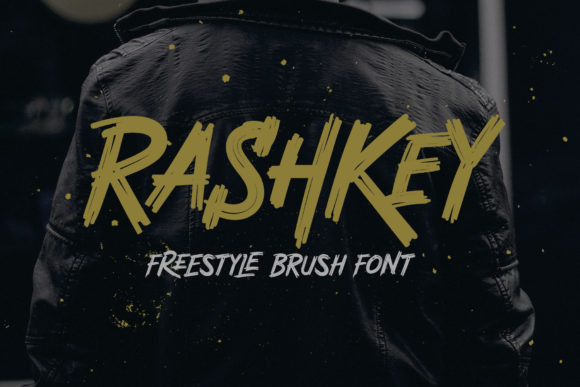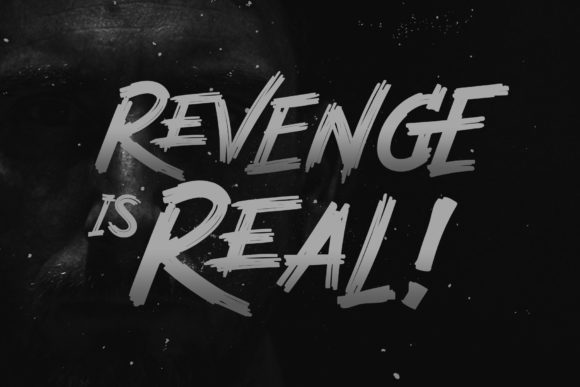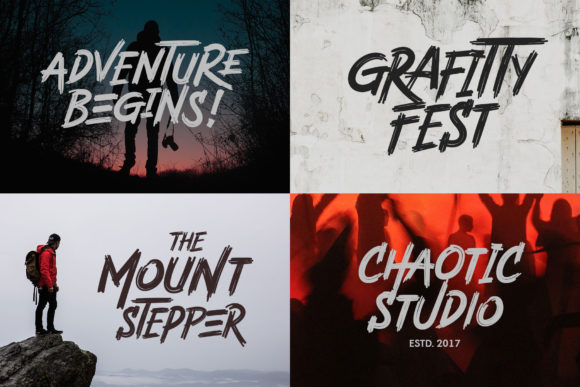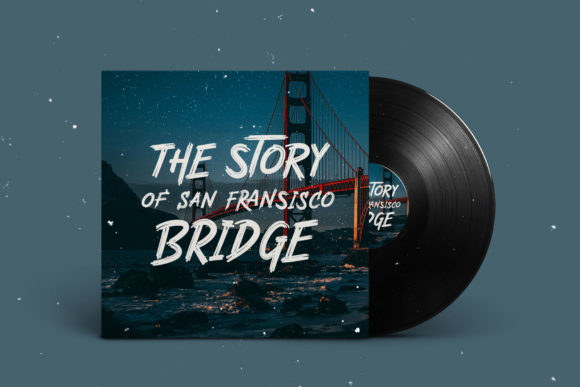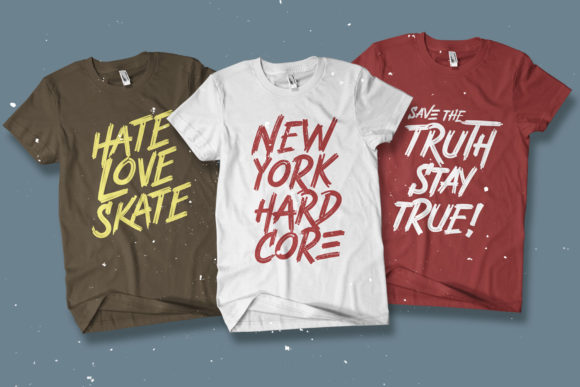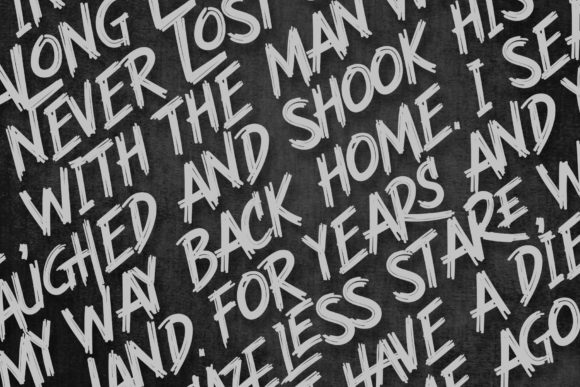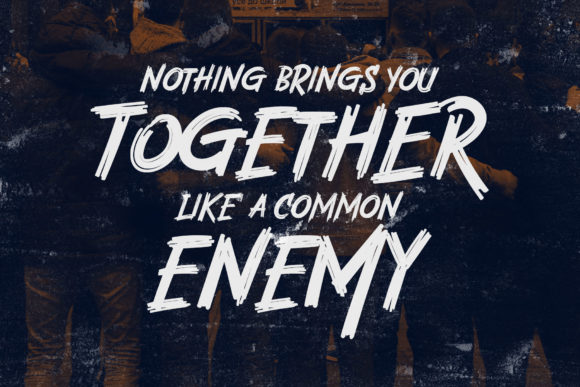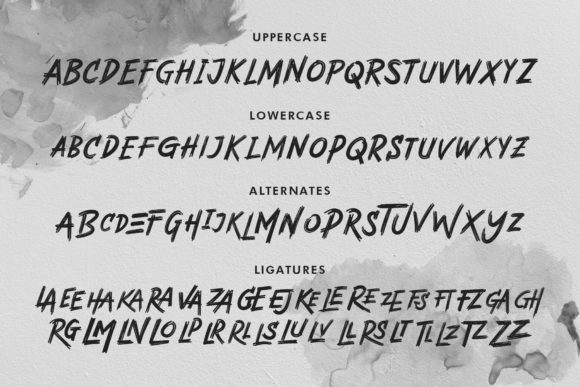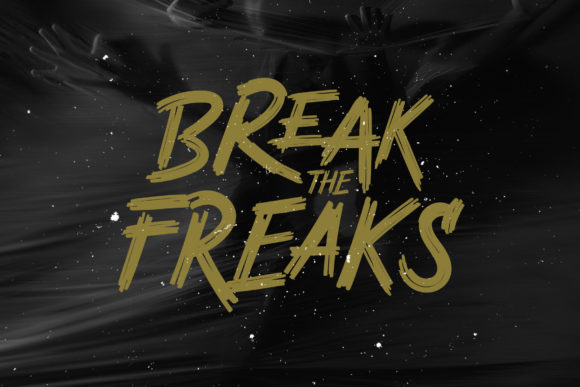
HomeScript FontsRashkey Font Script Fonts Rashkey Font FacebookXPinterestWhatsApp Rashkey Font Poster 2 Rashkey Font Poster 3 Rashkey Font Poster 4 Rashkey Font Poster 5 Rashkey Font Poster 6 Rashkey Font Poster 7 Rashkey Font Poster 8 Rashkey Font Poster 9 About Rashkey Font Rashkey is a bold and dynamic script with sharp details. Get inspired by its unique charm! DOWNLOAD NOW People also explored Signatria Font Happy Christmas Font Rineta Fareky Font Just Hatched Font Handmade Font Butterfly Story Font Cutie Kate Duo Font Alberth Family Font Workshop Font 371 0 TagsRashkey Font Previous articleCreattion FontNext articleElegature Font LEAVE A REPLY Cancel reply Comment: Please enter your comment! Name:* Please enter your name here Email:* You have entered an incorrect email address! Please enter your email address here Website: Save my name, email, and website in this browser for the next time I comment. Personal Use Free Wondery Personal Use Free Read more about this font Mail Ray Stuff Personal Use Free Read more about this font Geuli Personal Use Free Read more about this font Adelaide Personal Use Free Read more about this font BLOG Exploring Font Trends Shaping Communication in the Digital Era Fonts, like all design elements, are subject to trends. They play a crucial role in communicating a brand's personality,... Best Fonts for YouTube Videos: Make Your Thumbnails Stand Out Elegant Wedding Invitation Fonts – Handwritten & Script Fonts Top 10 Handwritten Fonts That Elevate Your Designs